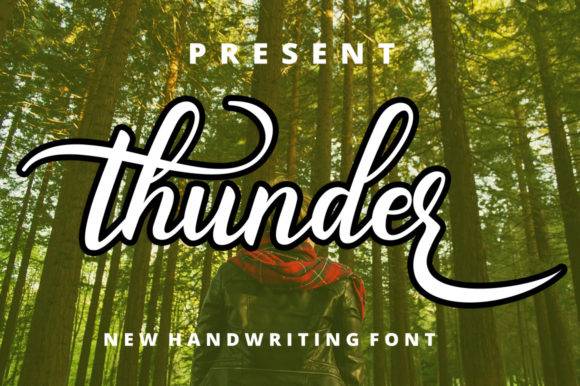
Thunder Font for Crafting, Logos and Print Projects
The Thunder Font is a high-contrast, heavyweight typeface created for standout crafting and branding applications. Whether you're designing product labels, t-shirts, signage, or digital headers, this font delivers clarity, edge, and maximum visual impact.
- Logo designers and brand identity creators
- Crafters using vinyl and heat transfer materials
- Small business owners making packaging and merchandise
- Poster and signage designers needing bold impact
- Print-on-demand stores producing standout items
- Custom t-shirts, hoodies, and hats
- Product logos and branding kits
- Vinyl decals and promotional signage
- Stickers, labels, and taglines
- Large-format prints and event posters
- Strong and modern with visual punch
- Ideal for cutting, printing, or digital use
- Great for branding and attention-grabbing designs
Q: What kind of font is Thunder?
A: Thunder is a bold, display-style font designed for standout text in crafts, branding, and print work.
Q: Does the font include numbers and punctuation?
A: Yes, it comes with a full character set, including numbers and basic symbols.